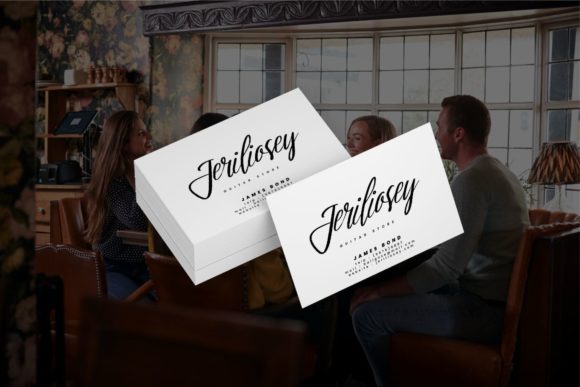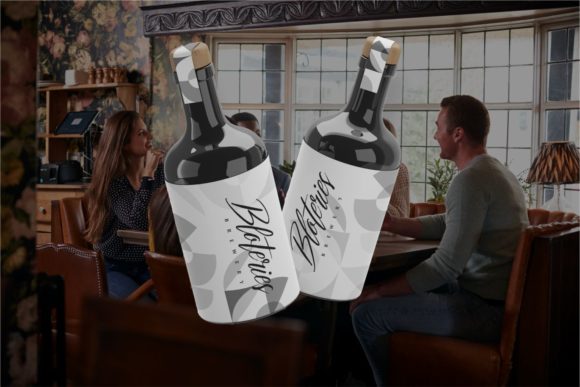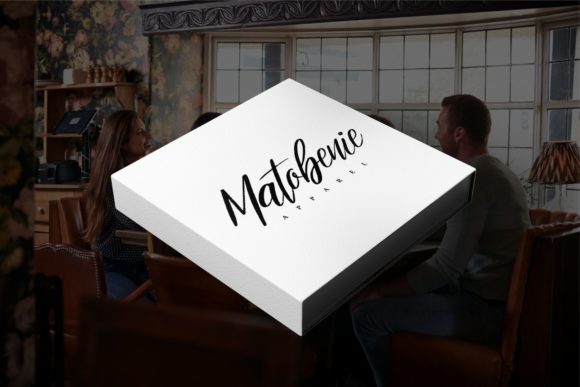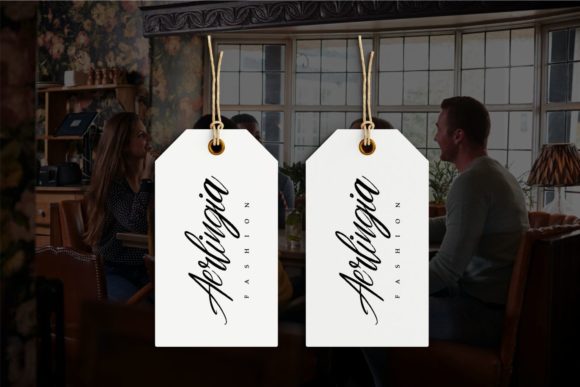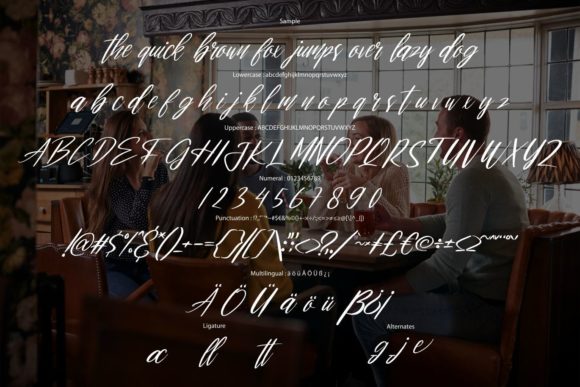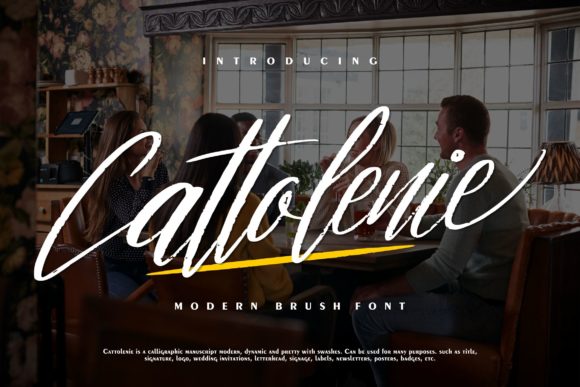
Cattaloenie Font: Elevate Your Crafting Ideas with Sophistication and Charm
In the world of crafting, the right font can make all the difference in delivering your message with confidence, authenticity, and charm. Introducing Cattaloenie, a sophisticated handwritten font that’s perfect for crafters, designers, and anyone looking to add a touch of elegance to their projects. In this article, we’ll dive into the world of Cattaloenie and explore how this beautiful font can elevate your crafting ideas.
What is Cattaloenie Font?
Cattaloenie is a carefully crafted handwritten font that’s designed to bring a sense of sophistication and charm to your projects. With its flowing lines and delicate strokes, this font is perfect for delivering messages with a personal touch. Whether you’re creating cards, branding materials, labels, or any other type of craft project, Cattaloenie is the perfect choice.
Key Features of Cattaloenie Font
- Sophisticated Handwritten Style: Cattaloenie boasts a beautiful, handwritten style that’s perfect for adding a personal touch to your projects.
- Confidence and Authenticity: With Cattaloenie, you can deliver your message with confidence and authenticity, making it perfect for crafting projects that require a personal touch.
- Versatility: This font is incredibly versatile and can be used for a wide range of crafting ideas, from cards and invitations to branding and labels.
- Elegant and Refined: Cattaloenie’s elegant and refined design makes it perfect for projects that require a touch of sophistication.
Uses of Cattaloenie Font
Cattaloenie is an incredibly versatile font that can be used for a wide range of crafting projects, including:
- Cards and Invitations: Add a personal touch to your cards and invitations with Cattaloenie’s beautiful handwritten style.
- Branding and Packaging: Elevate your branding and packaging with Cattaloenie’s sophisticated and elegant design.
- Labels and Tags: Use Cattaloenie to create beautiful labels and tags for your crafting projects.
- Stationery and Journals: Add a touch of sophistication to your stationery and journals with Cattaloenie’s refined design.
Benefits of Using Cattaloenie Font
Using Cattaloenie font offers a range of benefits, including:
- Unique and Personalized: Cattaloenie’s handwritten style adds a unique and personalized touch to your projects.
- Easy to Read: The font’s clear and elegant design makes it easy to read, even in small sizes.
- Customizable: Cattaloenie can be customized to fit your project’s specific needs, making it perfect for a wide range of crafting ideas.
- Time-Saving: With Cattaloenie, you can create beautiful crafting projects in no time, saving you time and effort.
Tips for Using Cattaloenie Font
Here are some tips for getting the most out of Cattaloenie font:
- Experiment with Different Sizes: Cattaloenie looks great in a range of sizes, so don’t be afraid to experiment and find the perfect size for your project.
- Pair with Other Fonts: Cattaloenie pairs well with other fonts, so try combining it with different fonts to create a unique look.
- Use for Headings and Body Text: Cattaloenie is perfect for both headings and body text, making it a versatile addition to your crafting projects.
Cattaloenie font is a sophisticated handwritten font that’s perfect for crafters, designers, and anyone looking to add a touch of elegance to their projects. With its flowing lines, delicate strokes, and versatile design, Cattaloenie is the perfect choice for a wide range of crafting ideas. Whether you’re creating cards, branding materials, labels, or any other type of craft project, Cattaloenie is sure to elevate your work and deliver your message with confidence, authenticity, and charm.